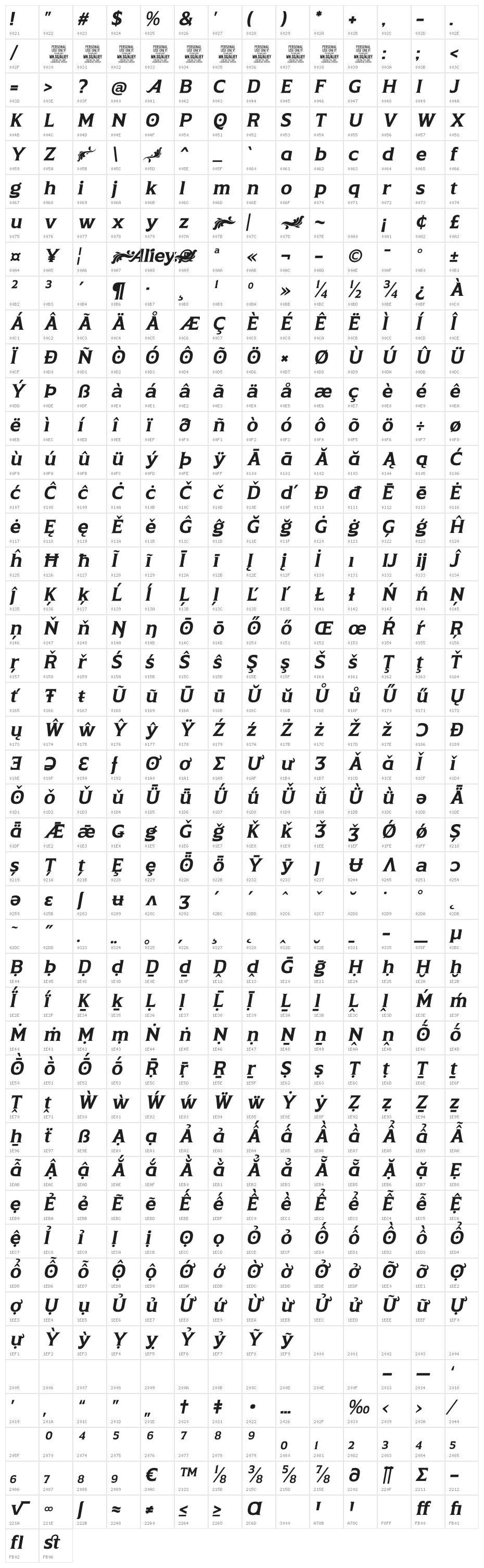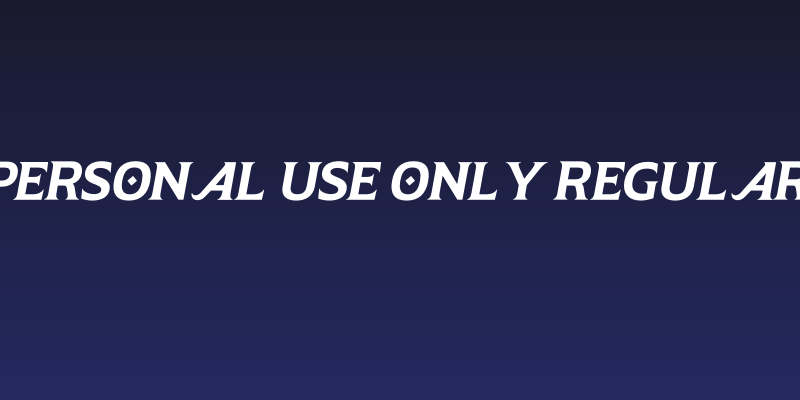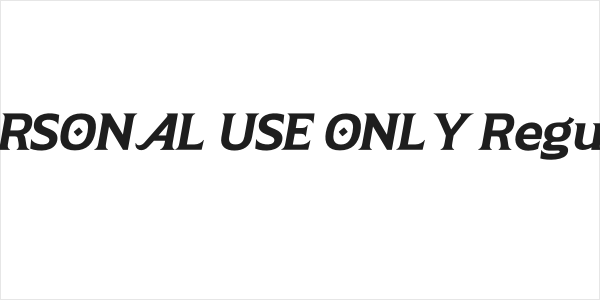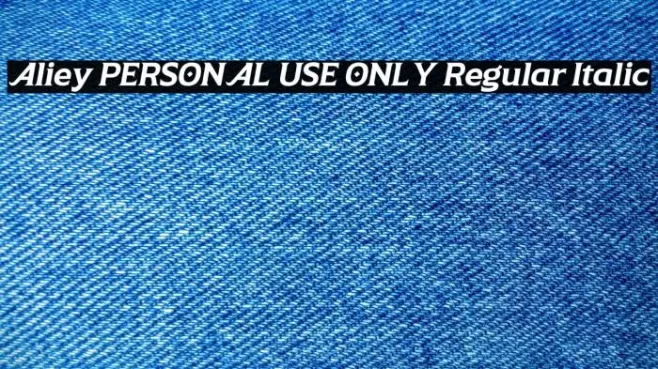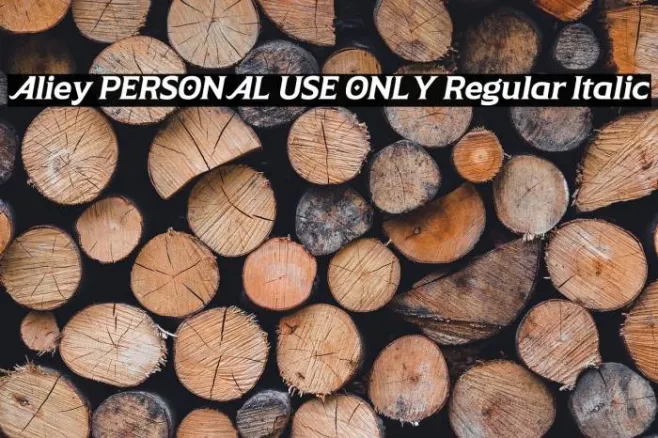
Aliey PERSONAL USE ONLY Regular Italic Font
Aliey PERSONAL USE ONLY Regular Italic Description
This font features a dynamic and elegant style with a slight italic slant, giving it a sense of movement and sophistication. The characters are well-defined with moderate contrast in stroke thickness, providing a balanced appearance. The uppercase letters are bold and commanding, while the lowercase letters maintain a consistent flow. The numerals are clear and easy to read, and the special characters are distinct, adding versatility to the font. The overall design is modern yet timeless, making it suitable for a variety of applications.